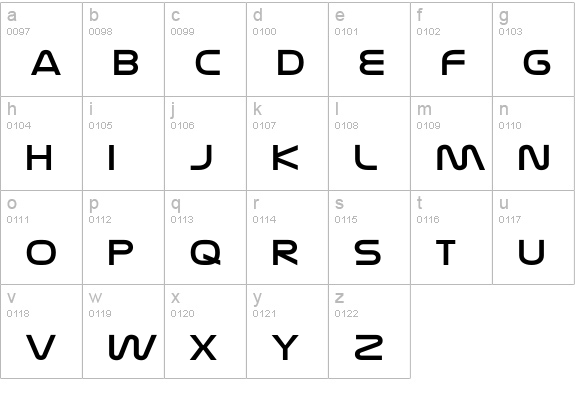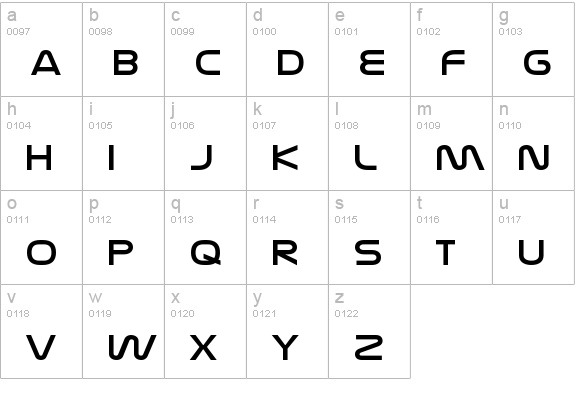
Nasalization Extended is a distinctive, extended-width variant in the Nasalization typeface family \xE2\x80\x94 well suited to design and typography projects.
Nasalization Extended is a modern and stylish font that exudes a sense of futuristic sophistication. With its sleek and streamlined design, this font is perfect for creating eye-catching headlines, logos, and branding materials. The extended version of Nasalization offers a unique twist to the original font, providing even more versatility and creative possibilities. What makes Nasalization Extended even more appealing is that it is available for free download at FontsMarket.com. This means that you can easily access this high-quality font without any cost, making it a valuable addition to your design toolkit. Whether you're working on a professional project or simply looking to add a touch of elegance to your personal creations, Nasalization Extended is sure to impress with its clean lines and contemporary aesthetic. Elevate your designs with Nasalization Extended today!